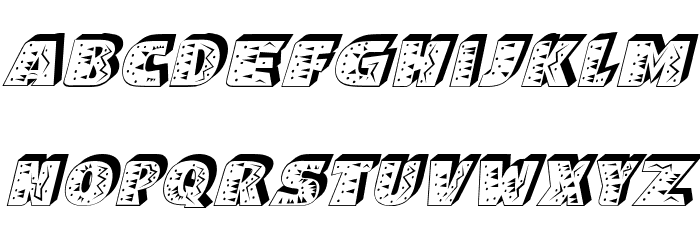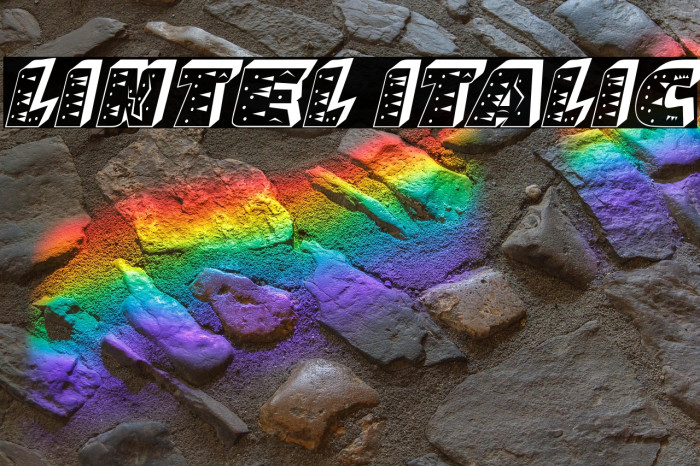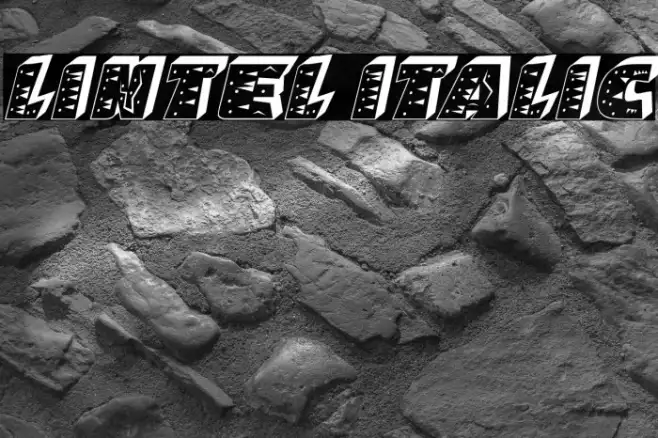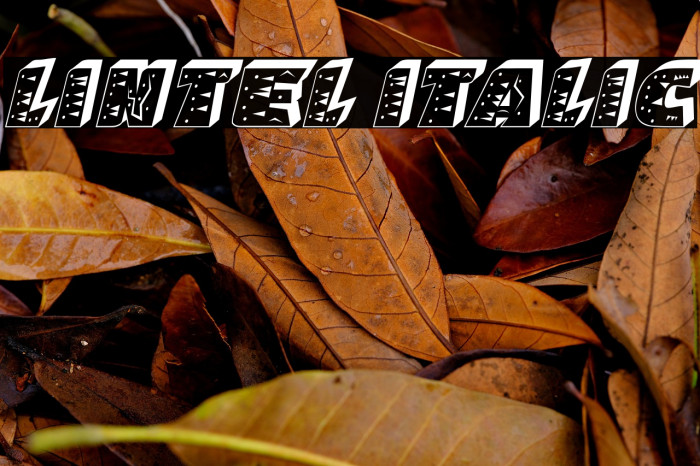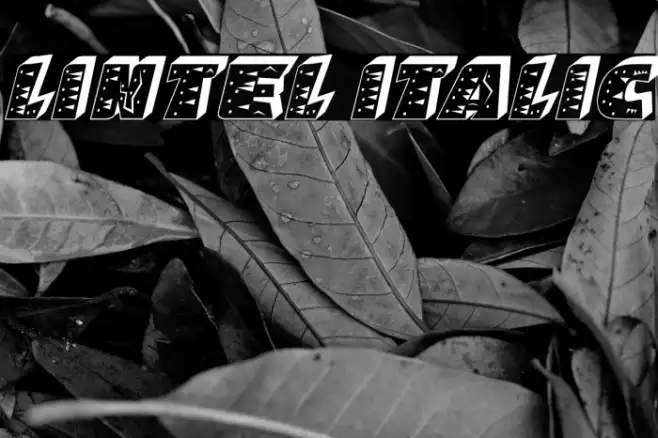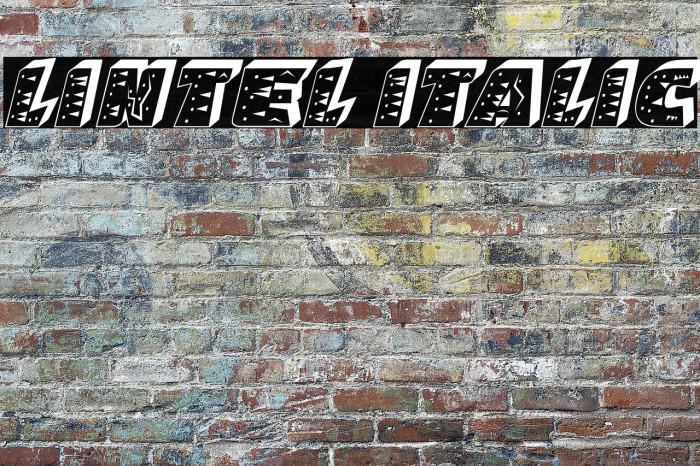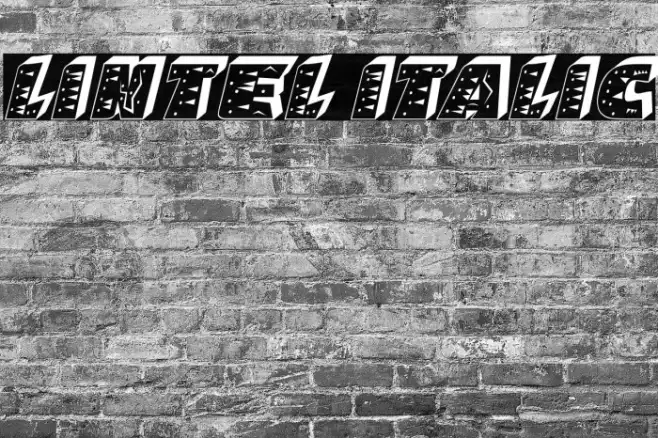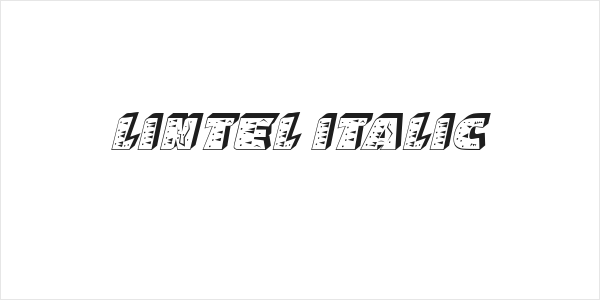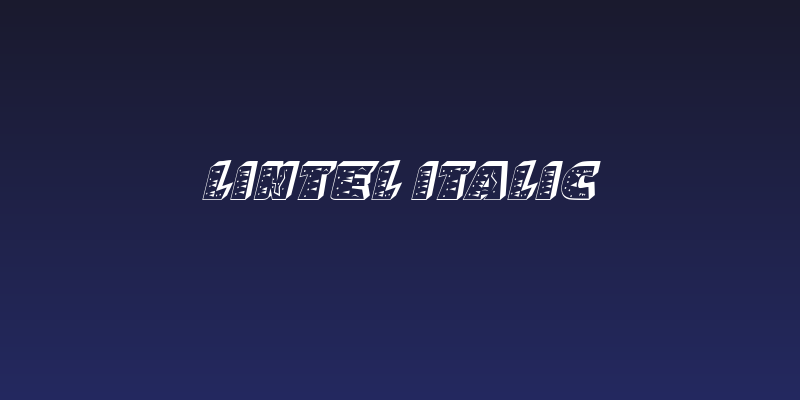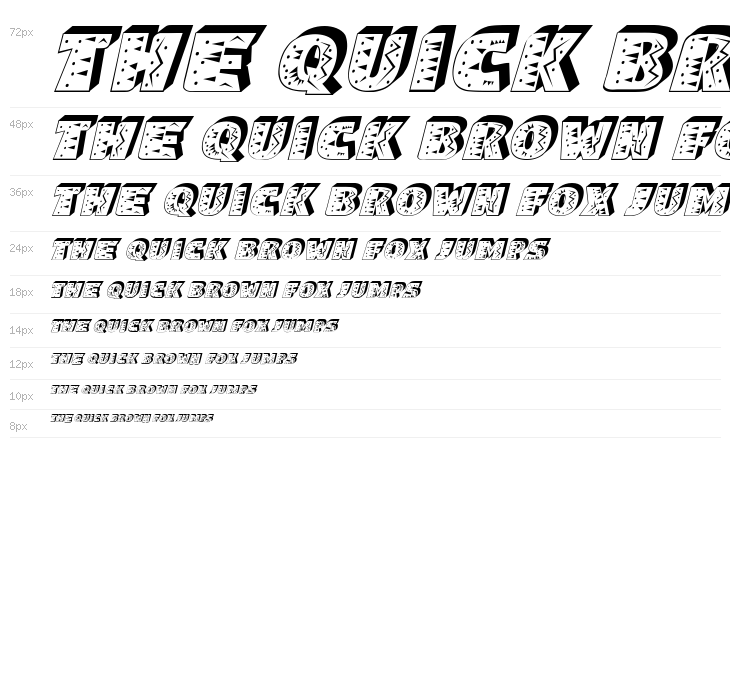
Lintel Italic Font
Lintel Italic Description
This font features a bold and dynamic style with a distinct italic slant, giving it a sense of movement and energy. The characters are outlined with a thick black border, creating a strong contrast against the white interior. Inside each letter, there are unique decorative patterns that add a playful and artistic touch. The overall design is eye-catching and modern, making it suitable for creative and bold design projects. The uppercase letters are prominently displayed, with consistent spacing and alignment, ensuring readability while maintaining its decorative appeal.
| Proposed Projects | Ideal for posters, logos, and headlines that require a bold and artistic flair. |